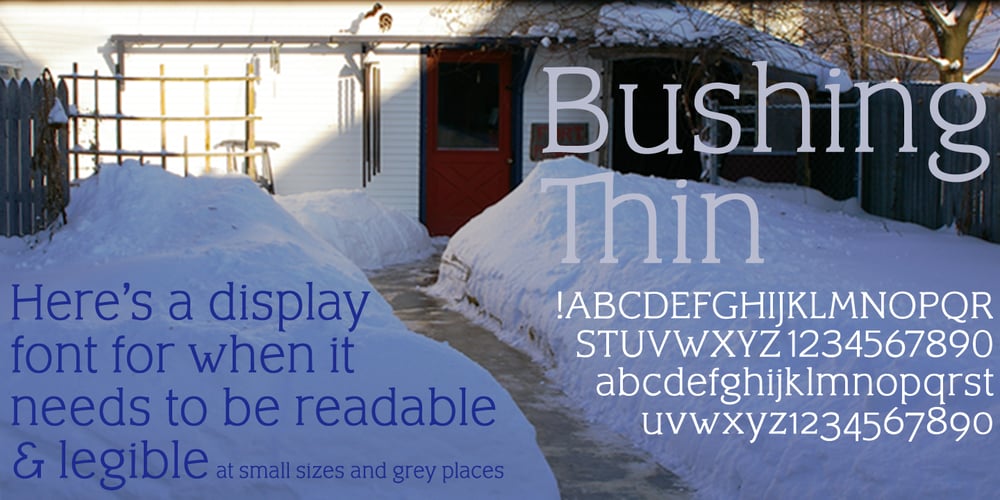
Bushing
Bushing font
Bushing Font Family was designed by David Bergsland and published by Hackberry Font Foundry. Bushing contains 1 styles and family package options. Bushing is a quick serif experiment going for open light display type. For years I have always stopped and really liked what I saw with fonts like the original Cushing from the turn of the 20th century. This time the desire for a font was stirred by Felici’s article in CreativePro on fonts from the beginning of the 20th century, especially his captures of Cushing No. 2 and the version commissioned for Norwood press from ATF. I’m not interested in historically accurate reconstructions. My desire is for the general feel I get when I see a font. As a result, Bushing has little to do with Cushing (other than the last six letters). But it is a Serif font with small serifs and a huge x-height with a very open feel. I like it. I hope you do also. I made it into a limited display version of OpenType Pro. I added small caps and oldstyle figures, as I can hardly work without them. But ligatures seemed silly for this one.